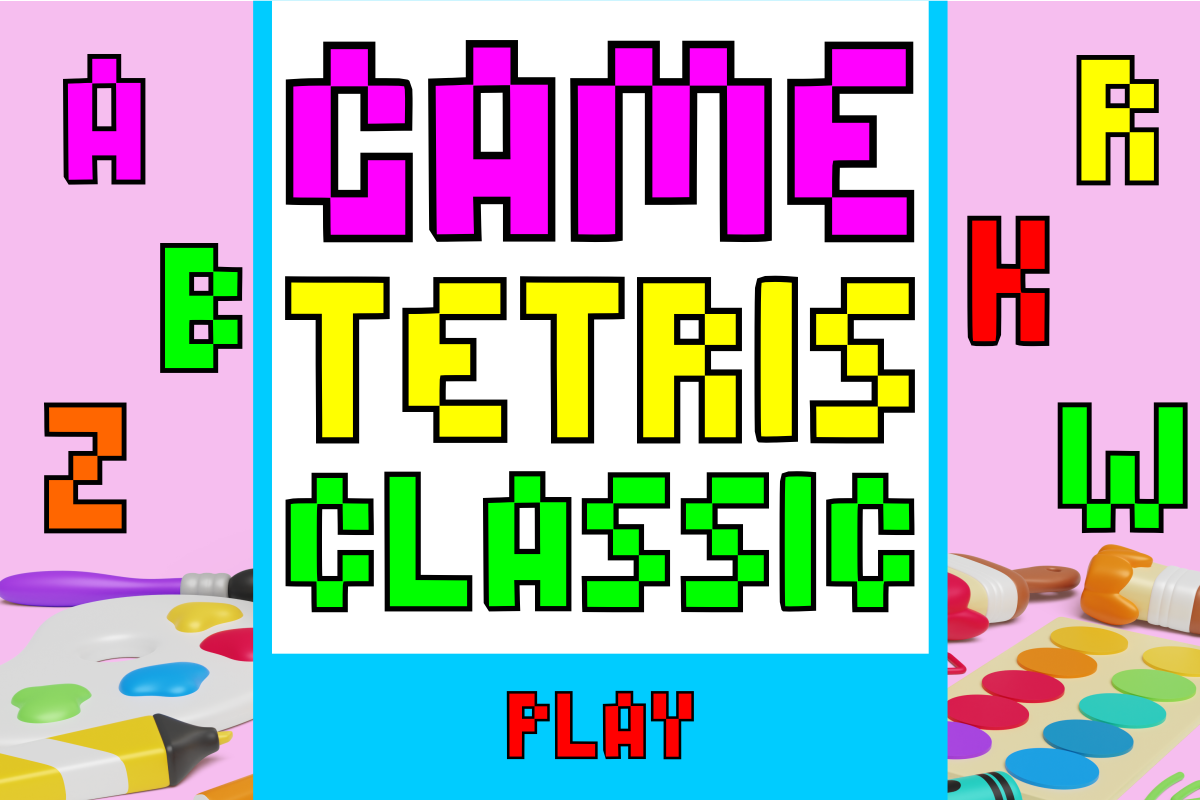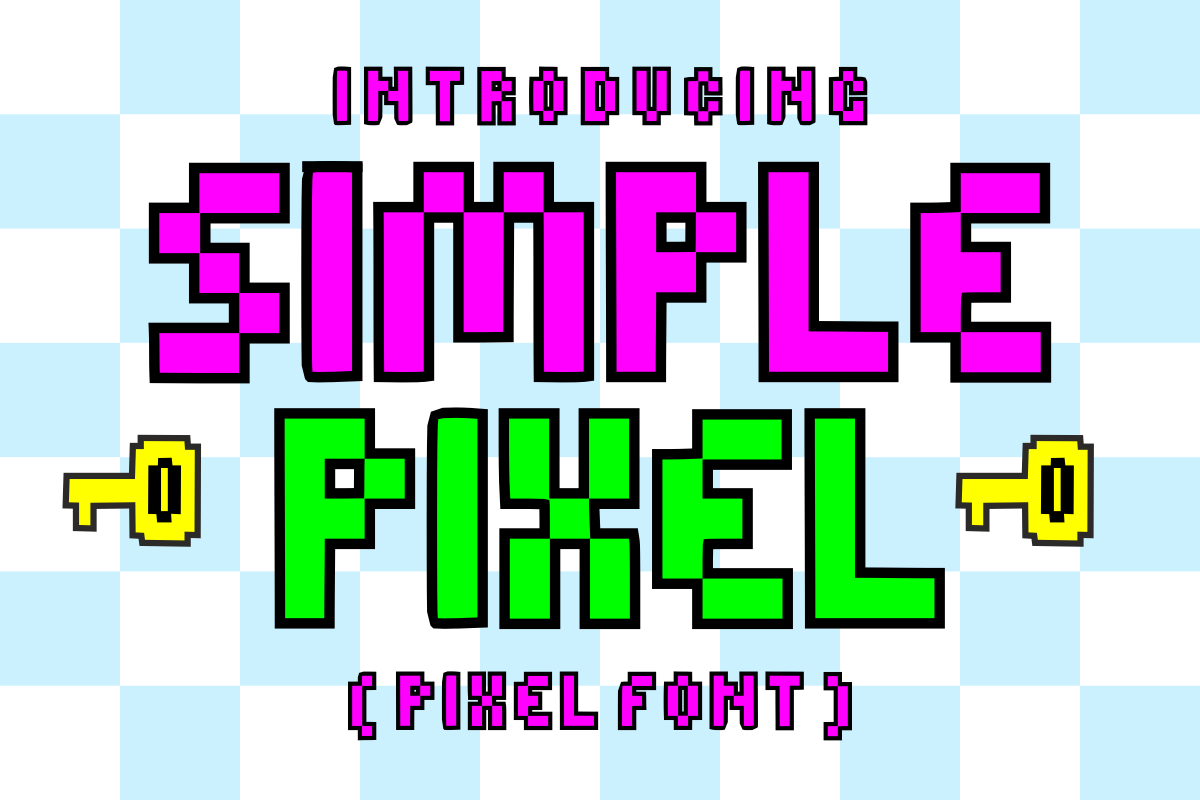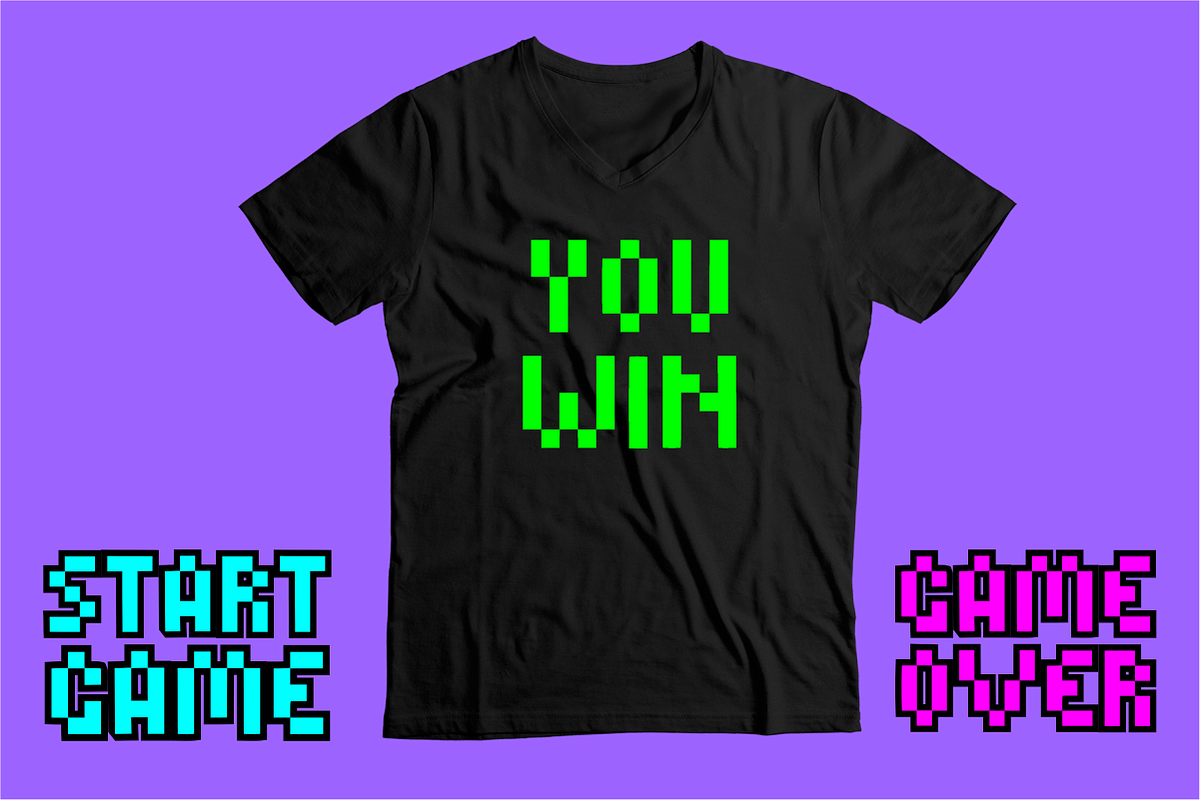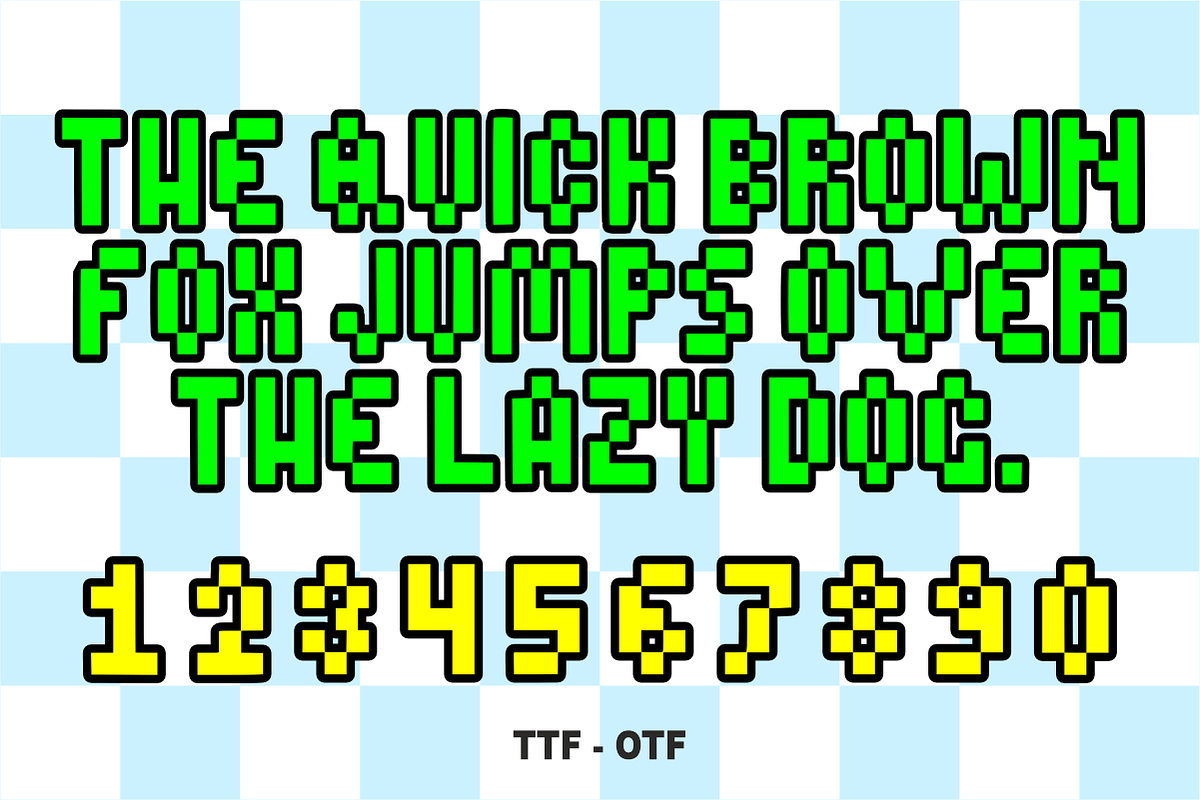
Simple Pixel – Gaming Display Font
Simple Pixel – Retro 8-Bit Gaming Display Font 👾🎮
Level up your designs with the ultimate nostalgic vibe!
Simple Pixel is a bold, blocky display font inspired by the golden era of classic arcade games and 8-bit consoles. Designed with precision and a fun, modern twist, this font brings a vibrant "pixel-perfect" aesthetic to any project. Whether you're building a video game UI, designing trendy stickers, or creating eye-catching social media graphics, Simple Pixel ensures your message stands out with high-impact, retro energy.
🌟 Why Simple Pixel is a Must-Have:
Authentic Retro Aesthetic: Perfectly captures the blocky, nostalgic feel of vintage gaming without losing modern readability.
High-Contrast Impact: Its thick letterforms and geometric structure make it ideal for headlines, logos, and bold statements.
Versatile Design: Works seamlessly for both digital and print projects, providing a clean yet playful look every time.
🎨 Perfect For:
👾 Video Game UI/UX: Level titles, loading screens, and in-game dialogue.
📺 Streaming & YouTube: Custom Twitch overlays, alert boxes, and thumbnail titles.
👕 Merchandise & Apparel: Retro-themed t-shirts, hoodies, and vibrant vinyl stickers.
🖼️ Posters & Branding: Event flyers, tech-focused logos, and "modern retro" marketing campaigns.
🎨 Pixel Art Projects: Adding clean typography to your digital pixel illustrations.
Character Set: All-caps Uppercase Letters (A-Z).
Numbers & Symbols: Complete numerals (0-9) and essential simple punctuation marks.